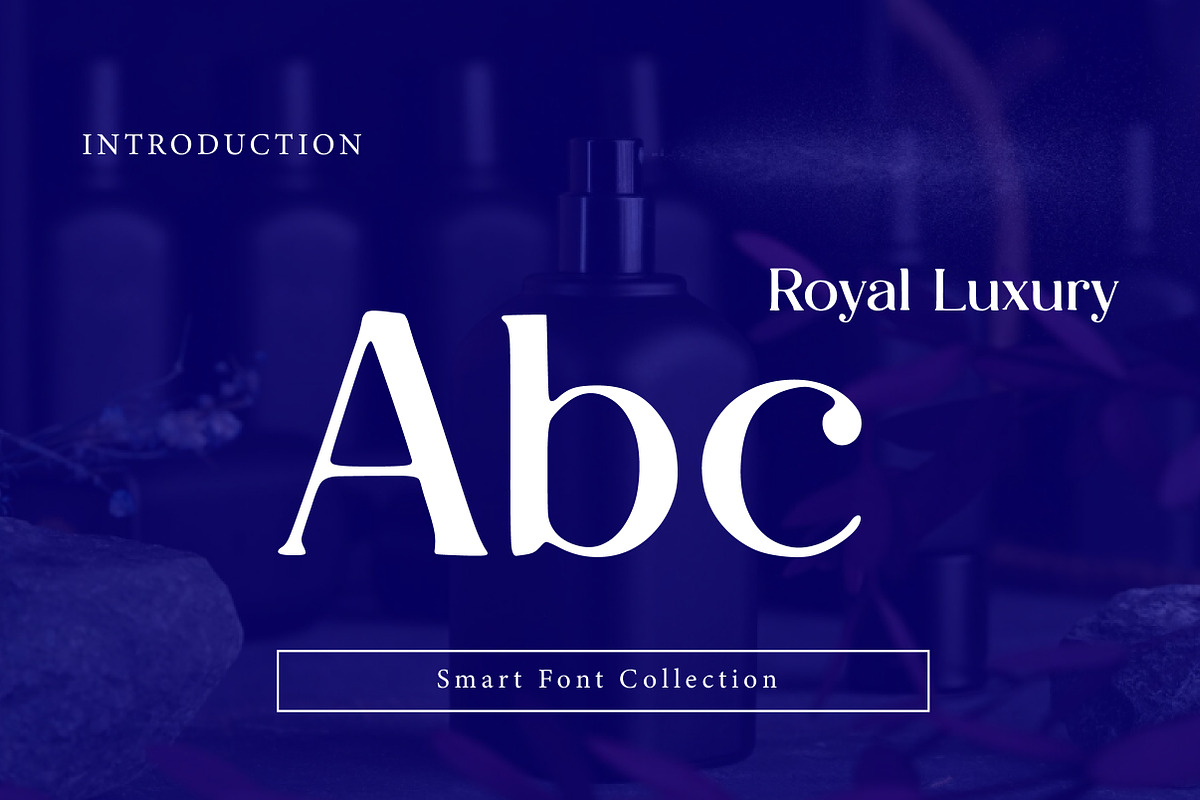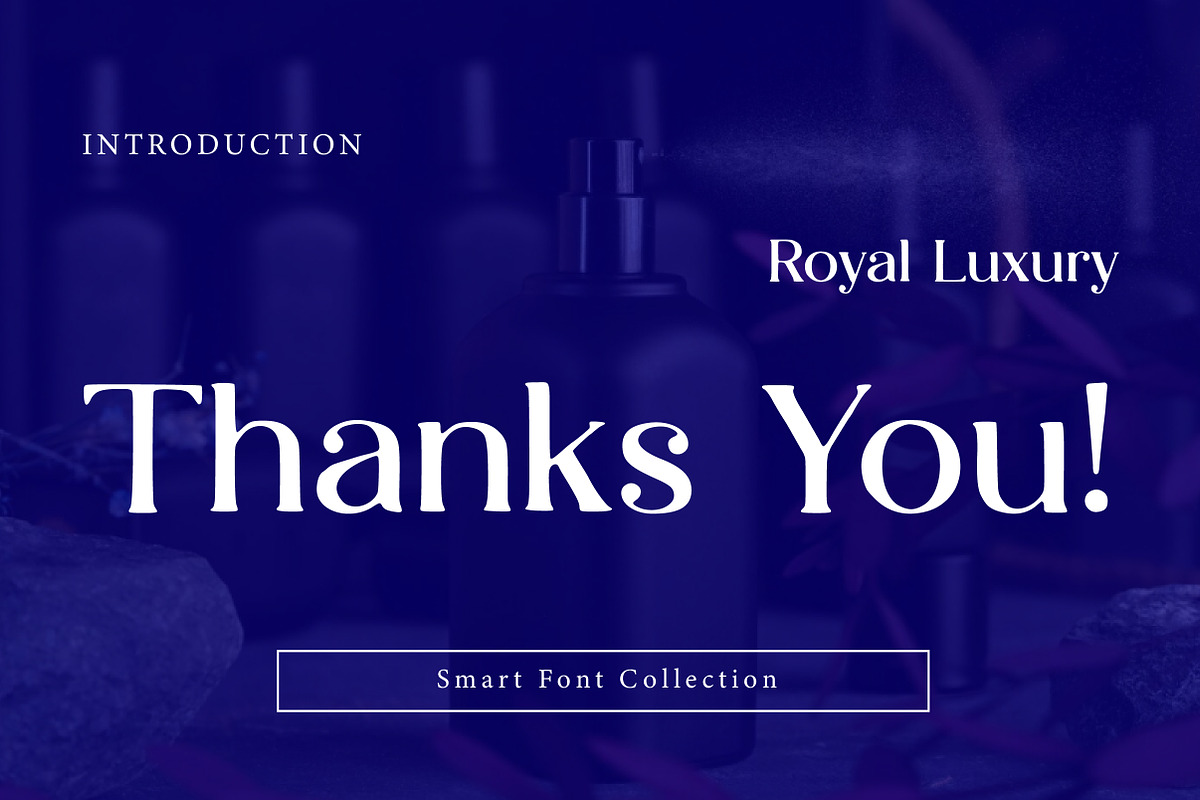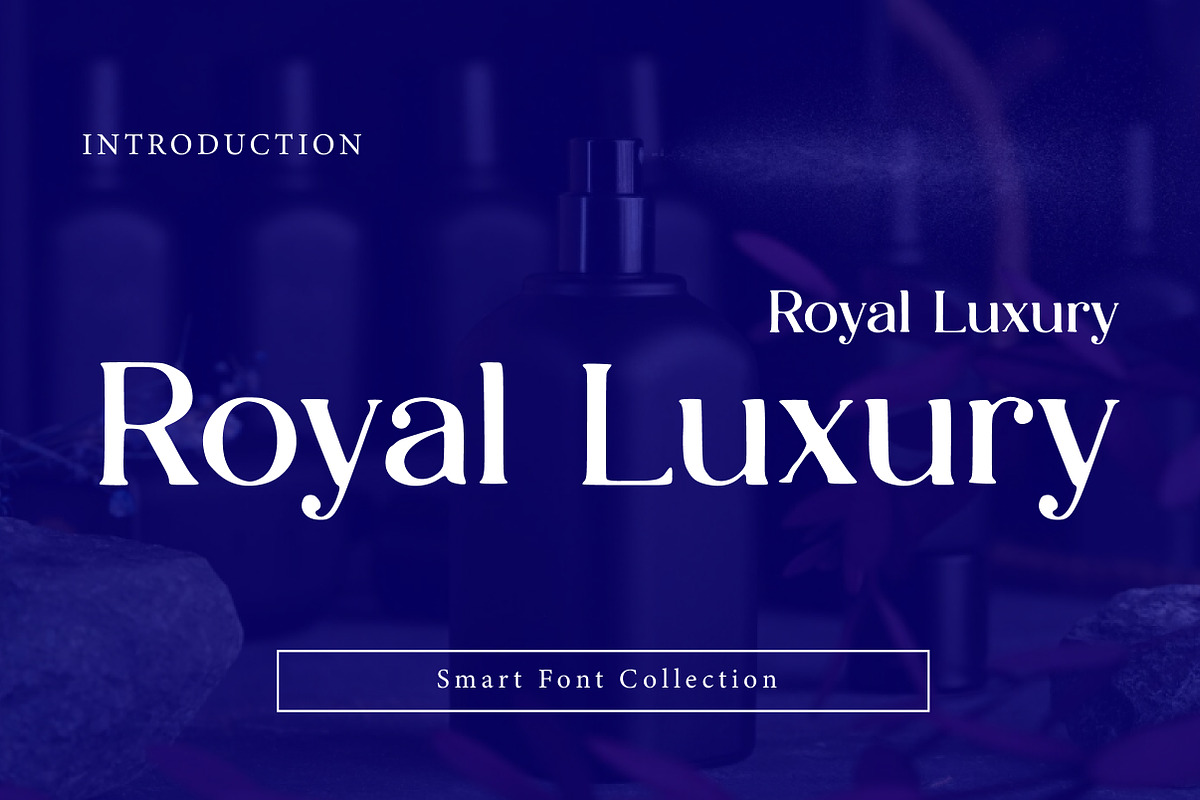
Royal Luxury
Royal Luxury is an elegant and majestic serif typeface inspired by royal heritage and high-end luxury design. Featuring refined letterforms, graceful curves, and balanced contrast, this font delivers a premium and authoritative presence.
Perfect for luxury branding, royal logos, fashion labels, magazines, packaging, invitations, certificates, and upscale editorial projects, Royal Luxury adds sophistication and class to any design. Its timeless serif style ensures readability while maintaining a noble and exclusive character across both print and digital platforms.
Royal Luxury is ideal for designers seeking a powerful, elegant, and prestigious serif font that communicates refinement and luxury.